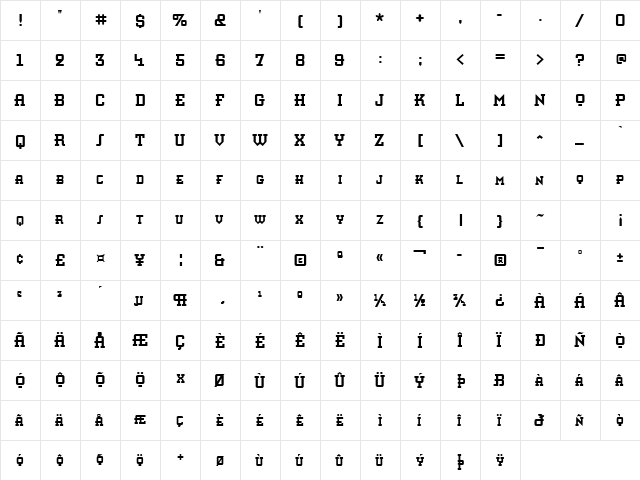
Knomen Regular
Design Context for Knomen Typeface
Knomen takes a measured approach to typography — its balanced proportions and neutral character make it a reliable workhorse for both digital and print work.